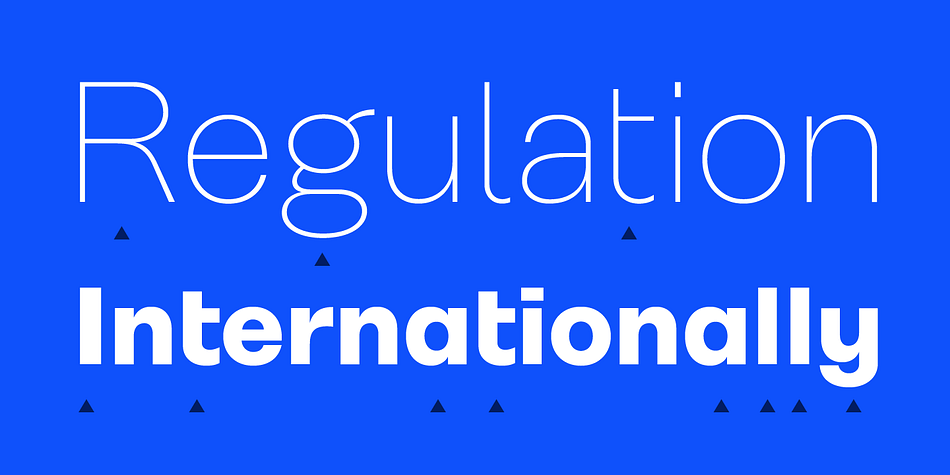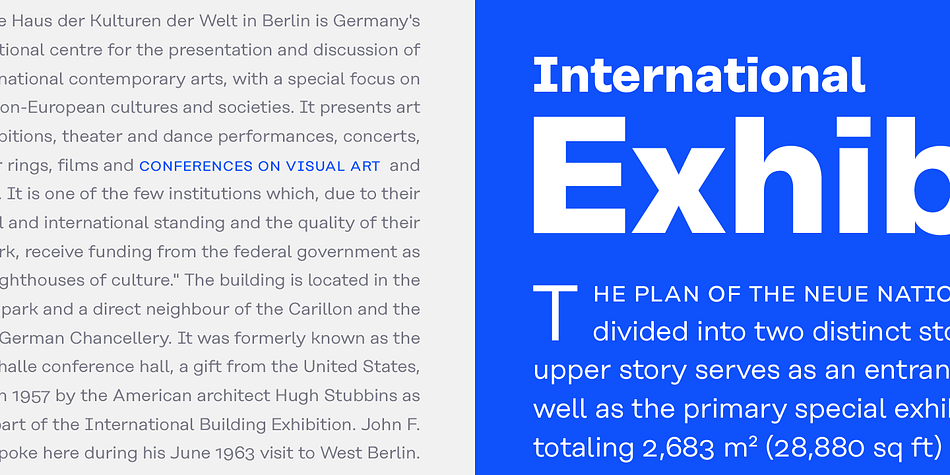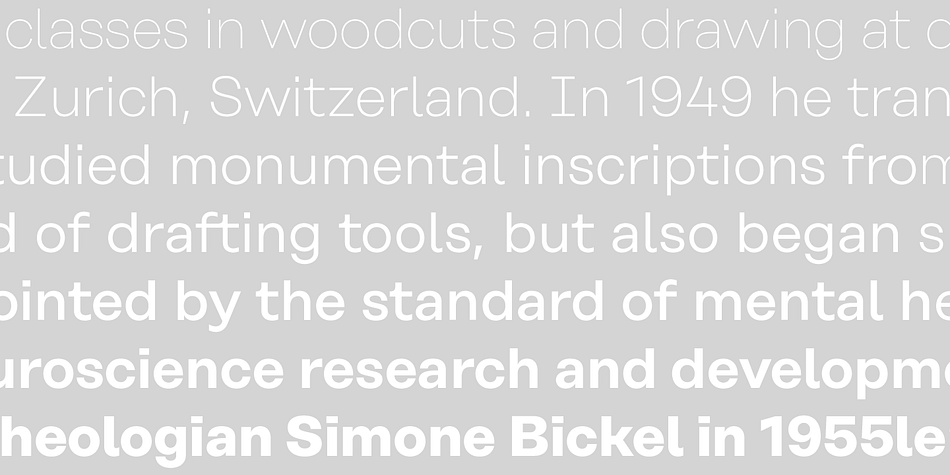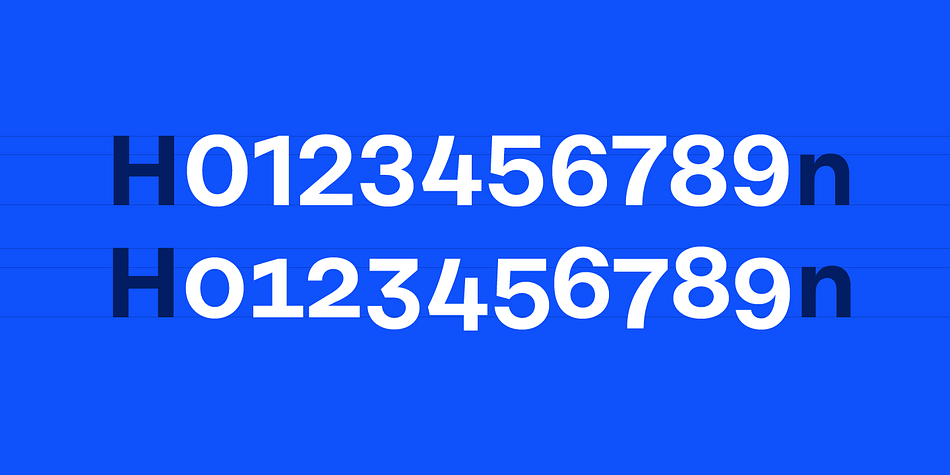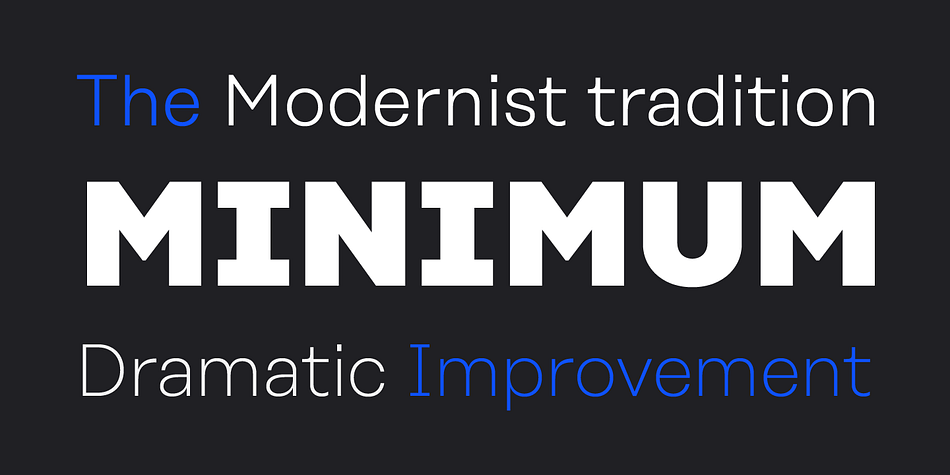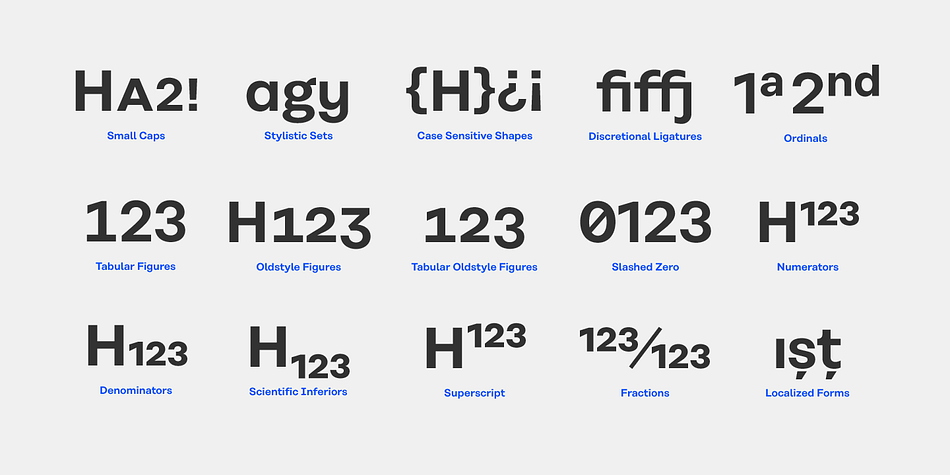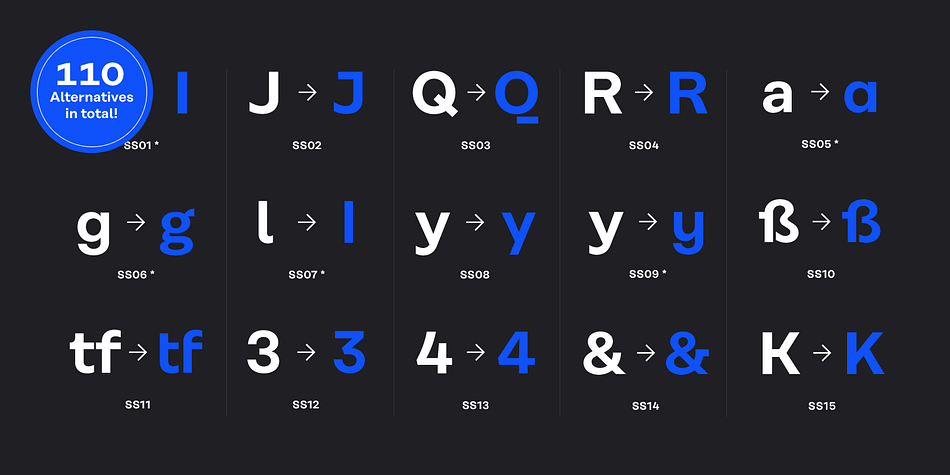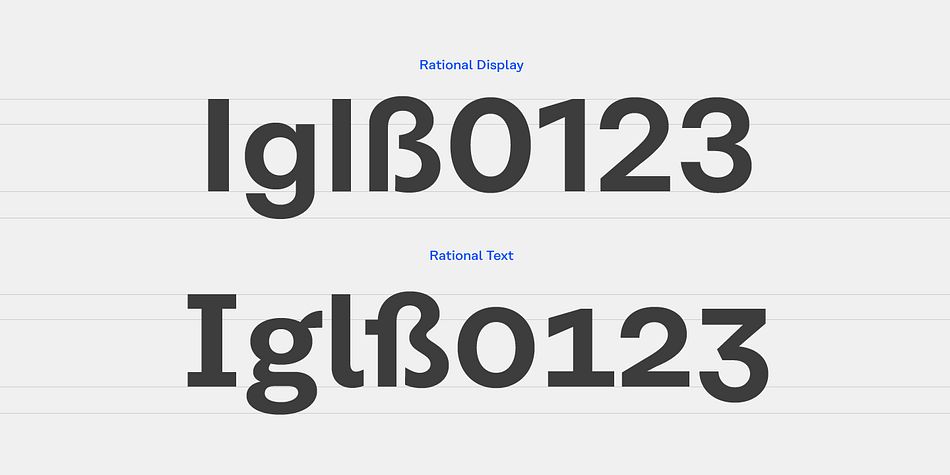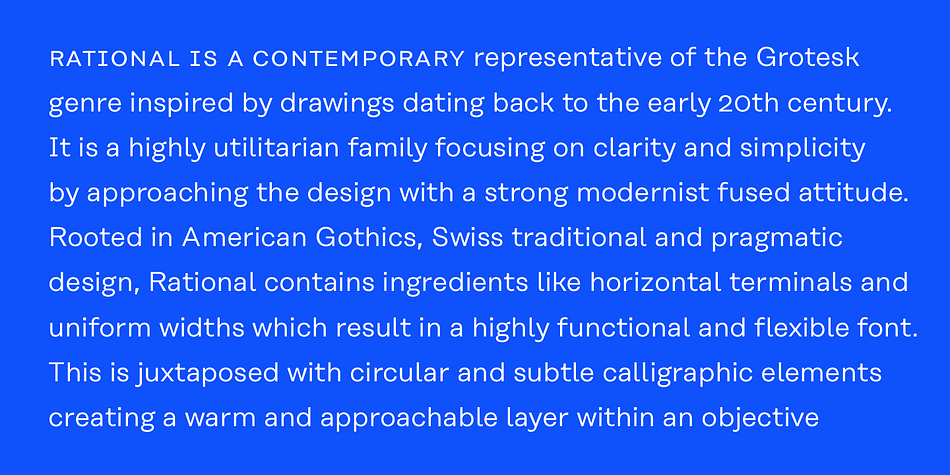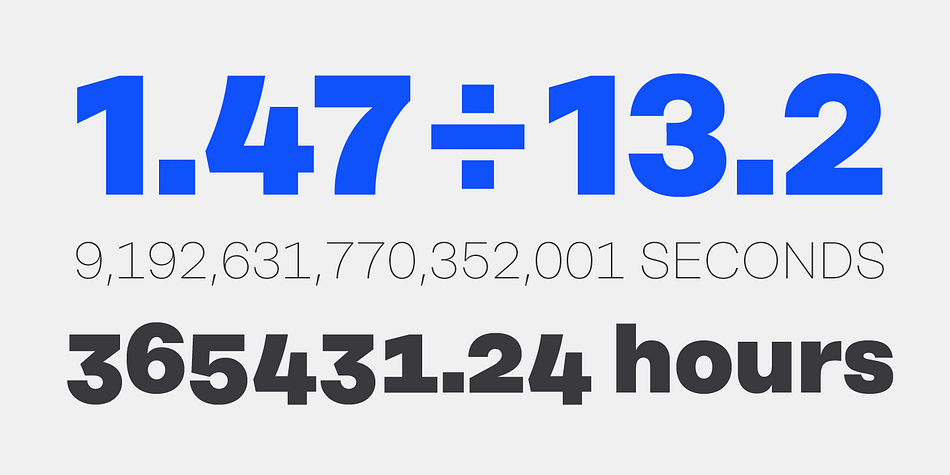
Designed by Rene Bieder, Rational is a sans serif font family. This typeface has forty-four styles and was published by Rene Bieder.
Rational is a contemporary representative of the Grotesk genre inspired by drawings dating back to the early 20th century. It is a highly utilitarian family focusing on clarity and simplicity by approaching the design with a strong modernist fused attitude.
Rooted in American Gothics and Swiss traditional and pragmatic design, Rational contains ingredients like horizontal terminals and uniform widths which result in a highly functional and flexible font. This is juxtaposed with circular and subtle calligraphic elements creating a warm and approachable layer within an objective surrounding.
With more than 800 glyphs per font, the family is optimized for numerous scenarios. It comes in 10 weights with matching italics containing opentype features like small caps, stylistic sets, case sensitive shapes, tabular figures and many more, making Rational the perfect choice for modern, contemporary and professional typography.